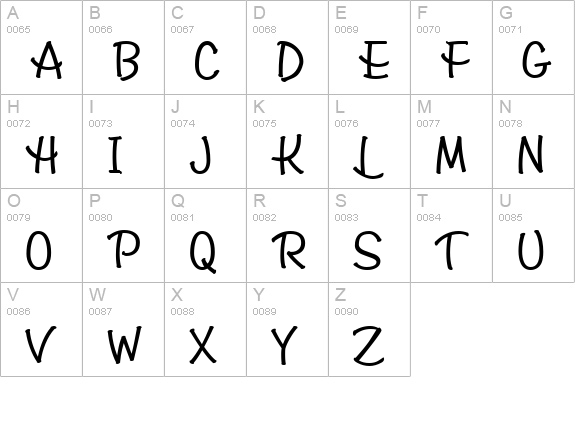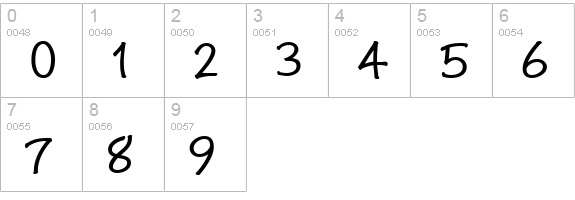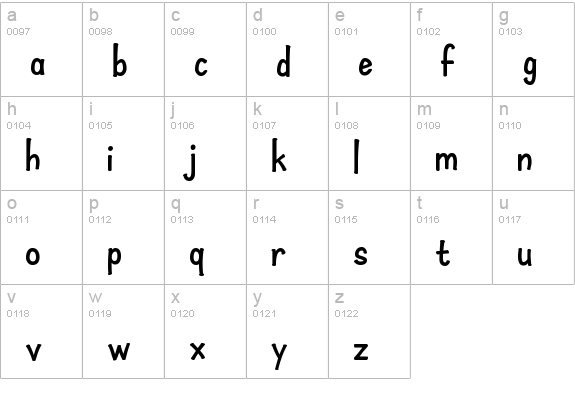
Humdinger Font Details
Introducing Humdinger font - a modern and stylish typeface that is sure to make your designs stand out! With its sleek lines and elegant curves, Humdinger is perfect for a wide range of projects, from branding to packaging to social media graphics. What sets Humdinger apart is not just its striking appearance, but also the fact that it is completely free to download. Yes, you read that right - this high-quality font can be yours at no cost at all! Simply head over to FontsMarket.com to get your hands on this versatile typeface and start using it in your projects today. Whether you're a seasoned designer looking to add a fresh touch to your work or a newcomer in need of a reliable font, Humdinger is the perfect choice. Download it now and let your creativity soar with this fantastic free font!